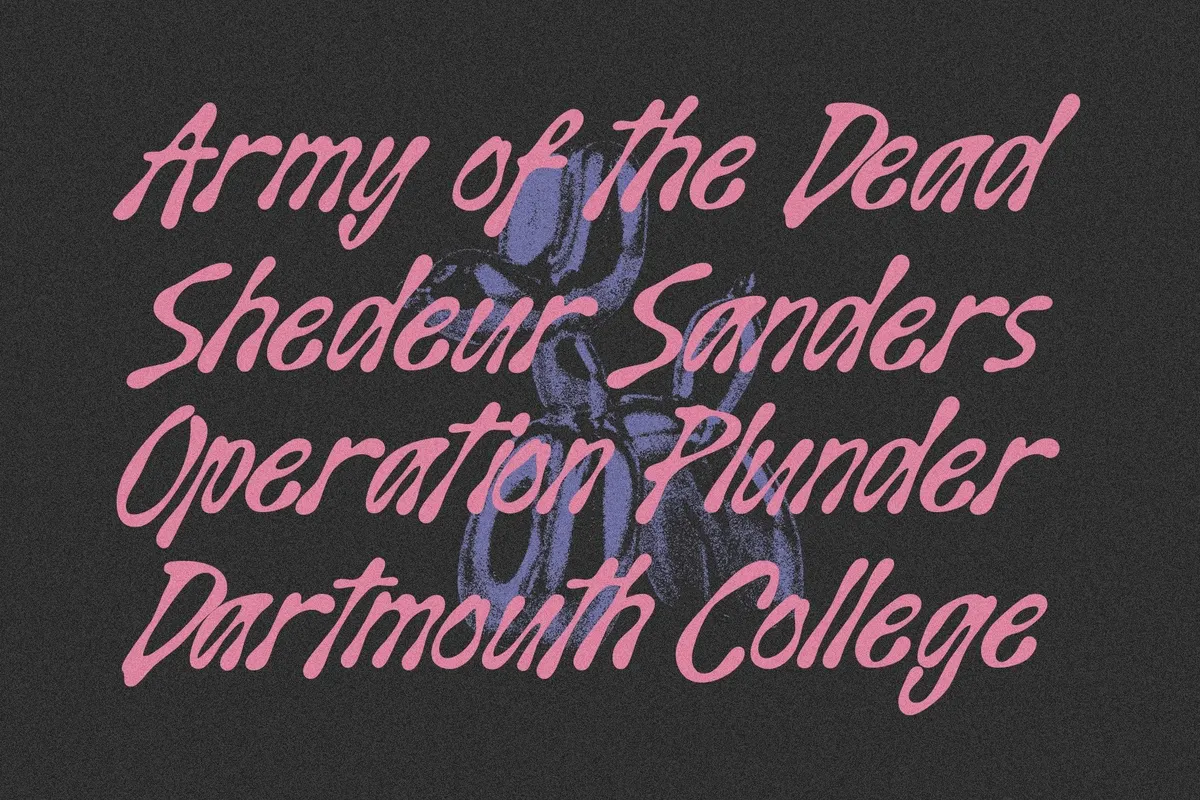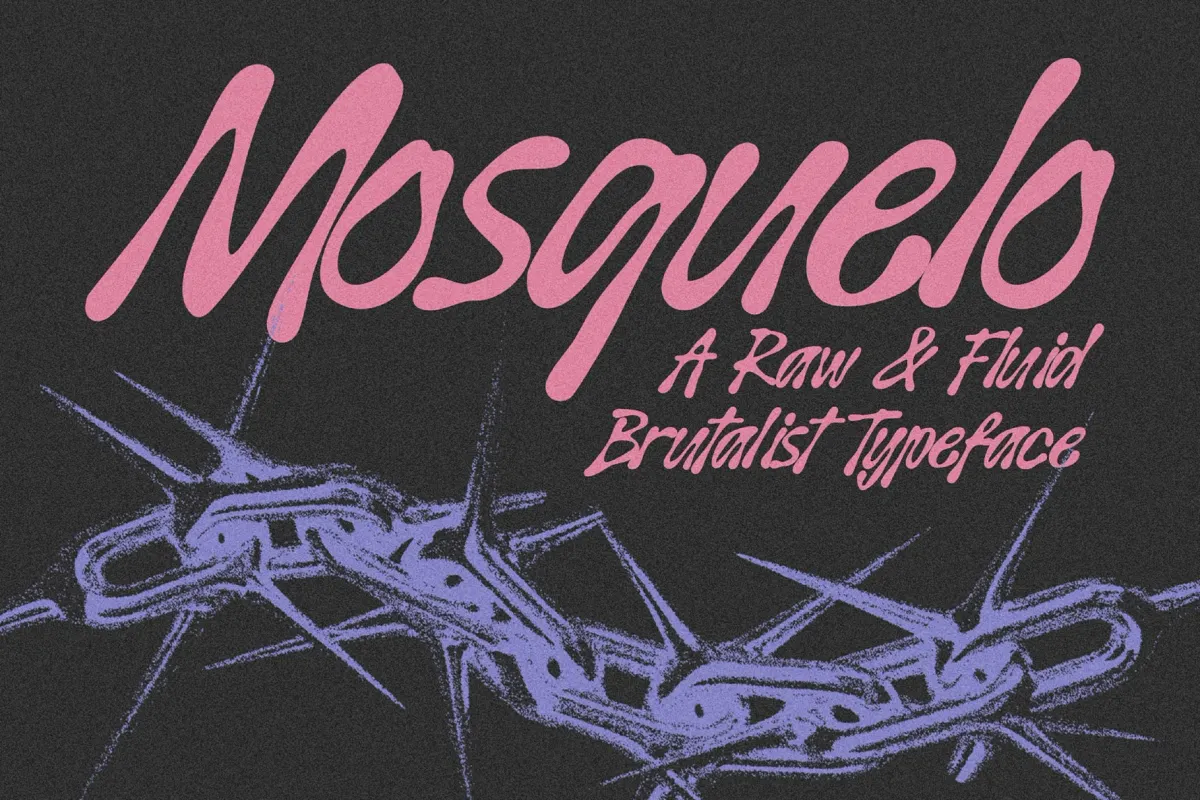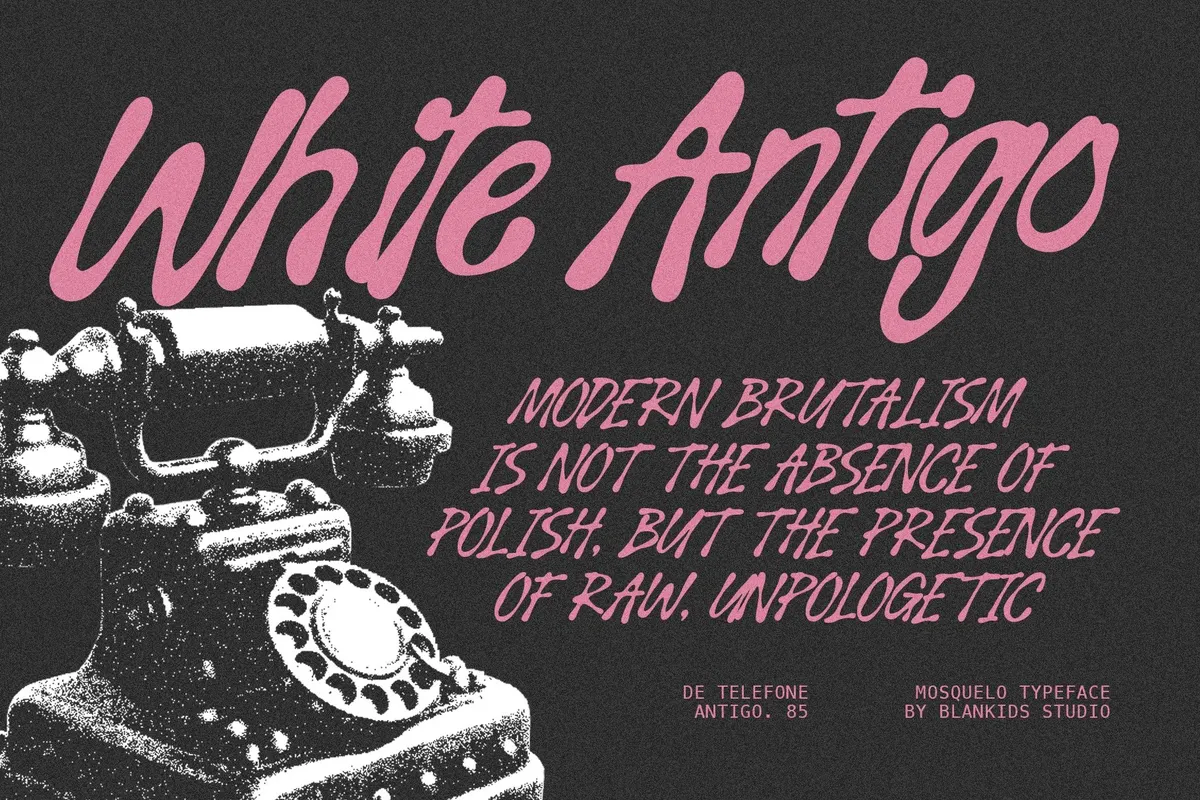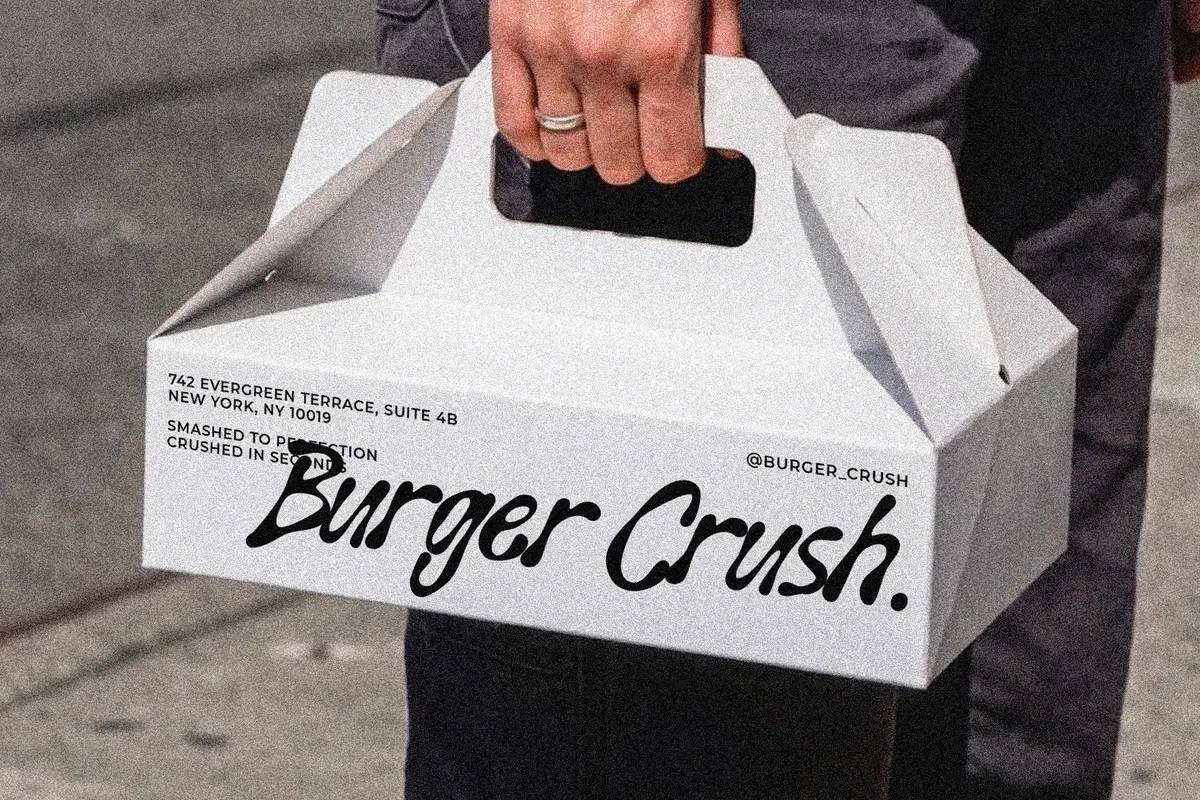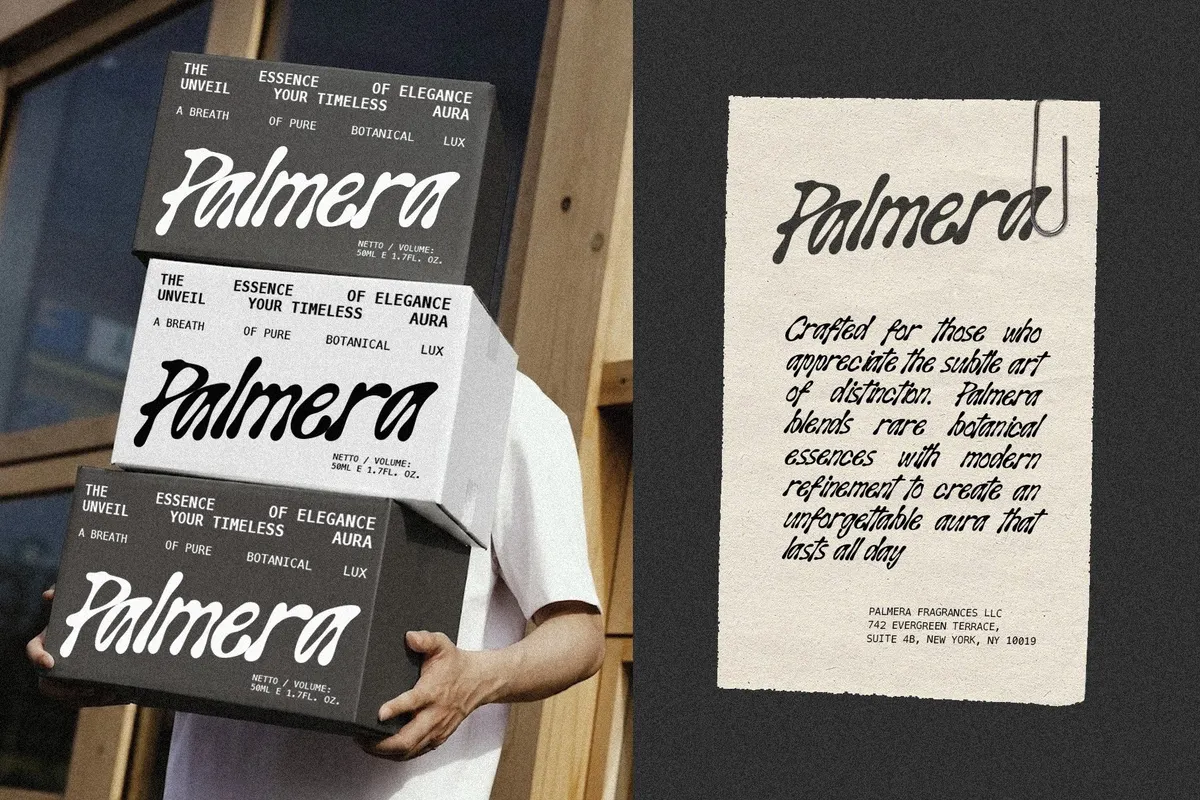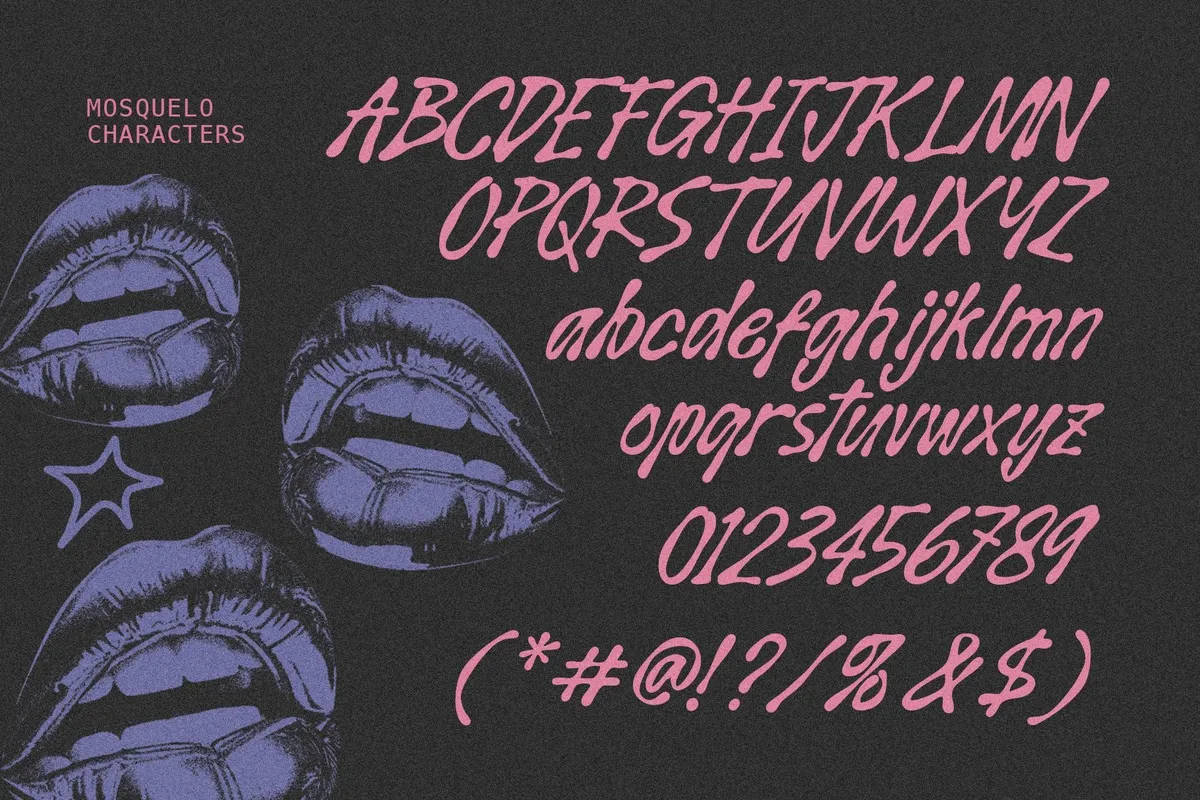
Mosquelo — A Raw & Fluid Brutalist Typeface
Mosquelo
Mosquelo pushes fluid cursive strokes into sharp brutalist angles, landing somewhere between a liquid signature and a chiseled concrete edge. The high-contrast script font swings from thin connecting strokes to thick, blunt terminals within the same word, so headlines carry tension instead of a single steady rhythm.
The letterforms stay loose enough for editorial titles and packaging marks, holding their edge from a full-bleed poster down to a small tag. Use it for café and barbershop branding, skincare and fashion labels, packaging marks, album covers, event posters, and social media quote graphics.